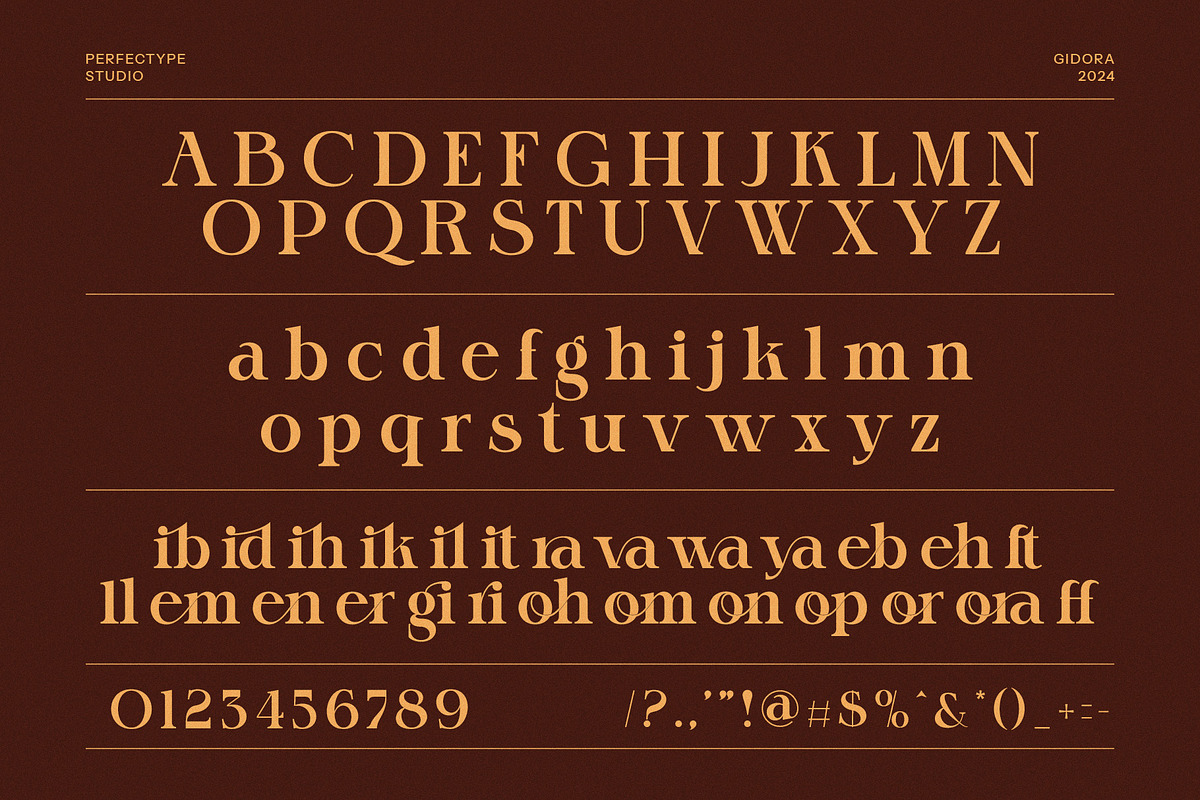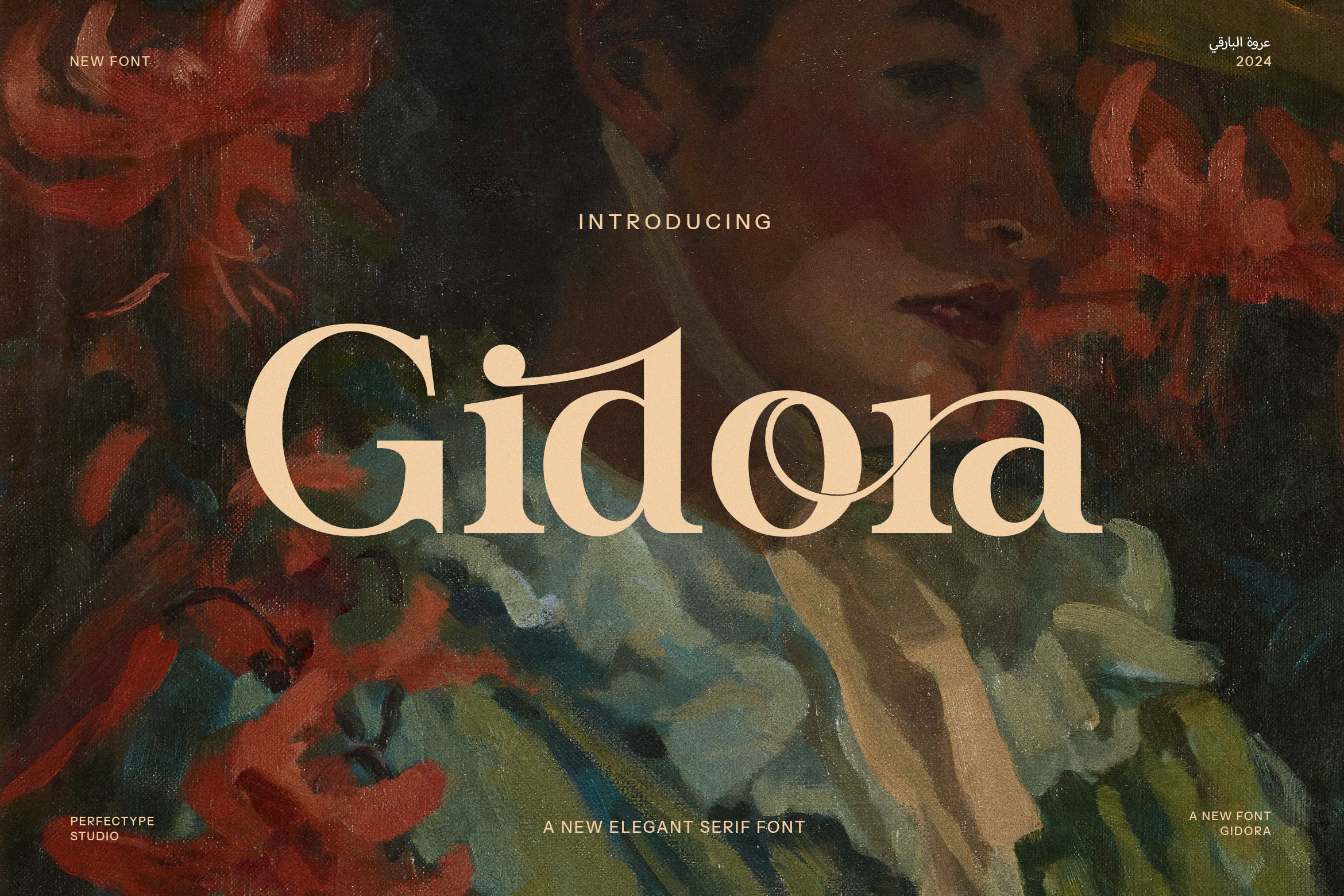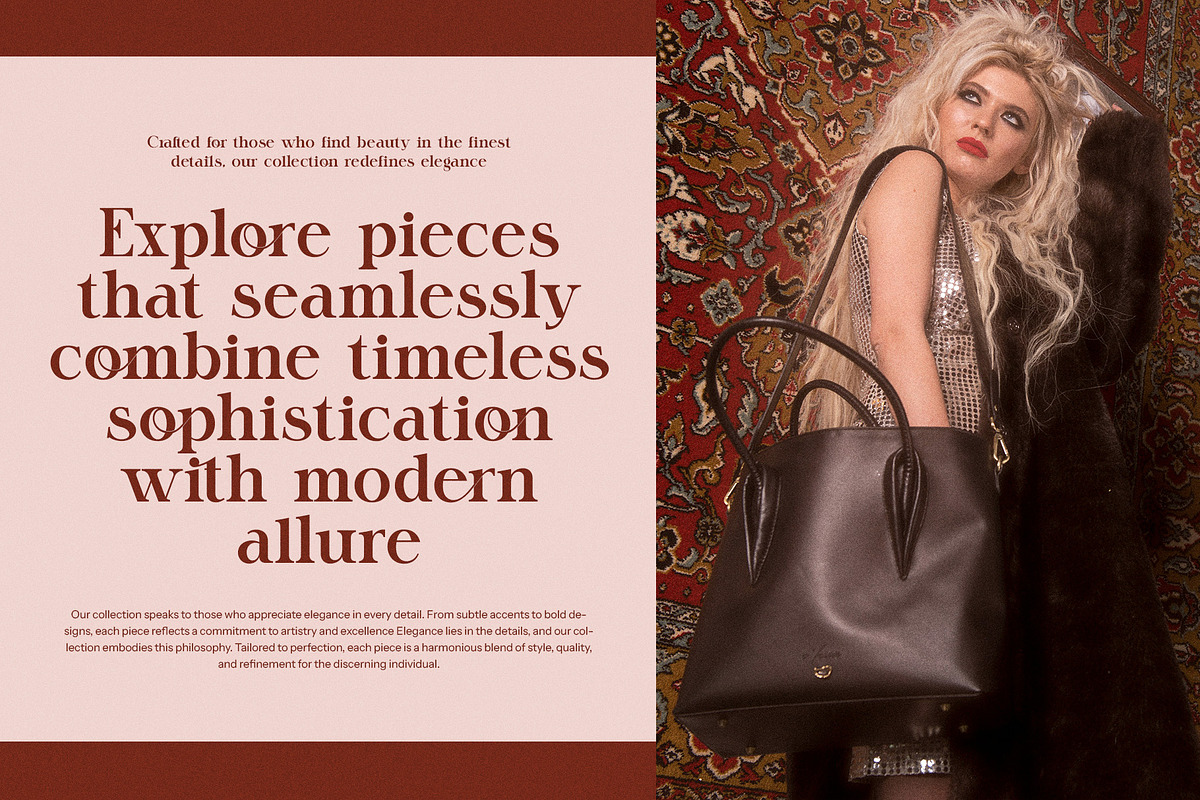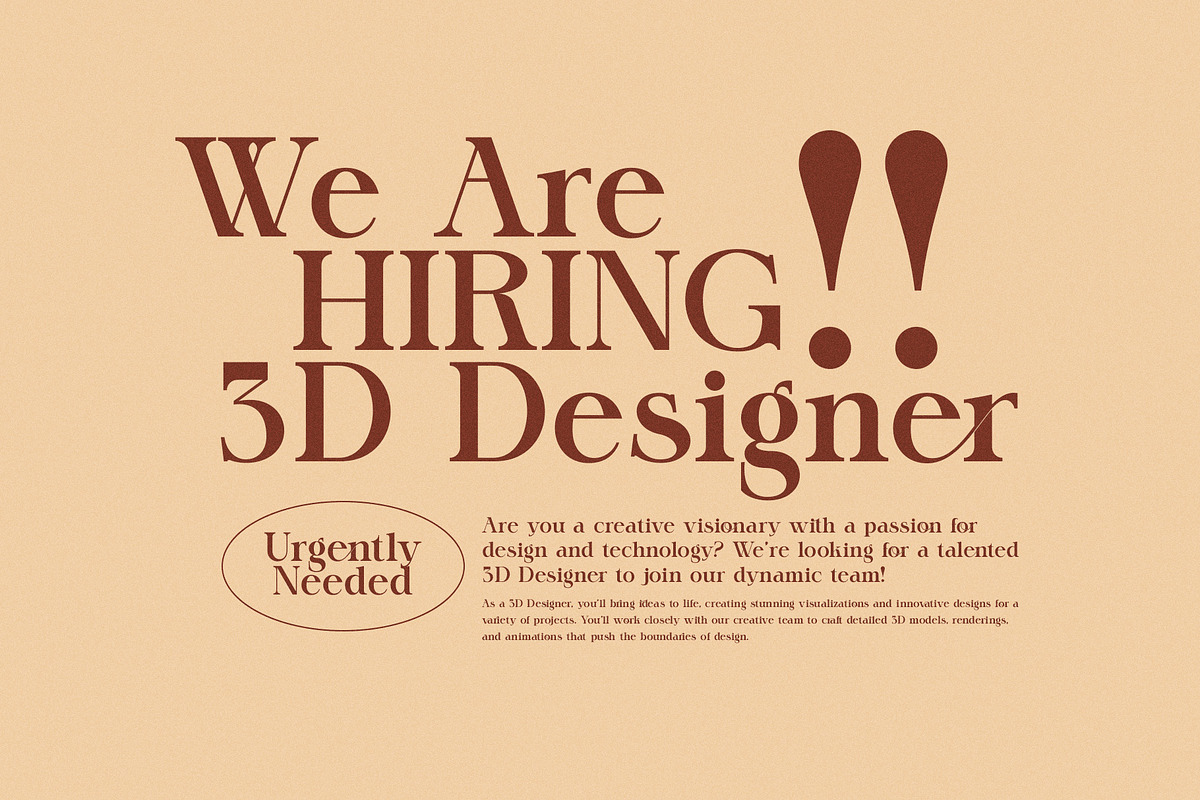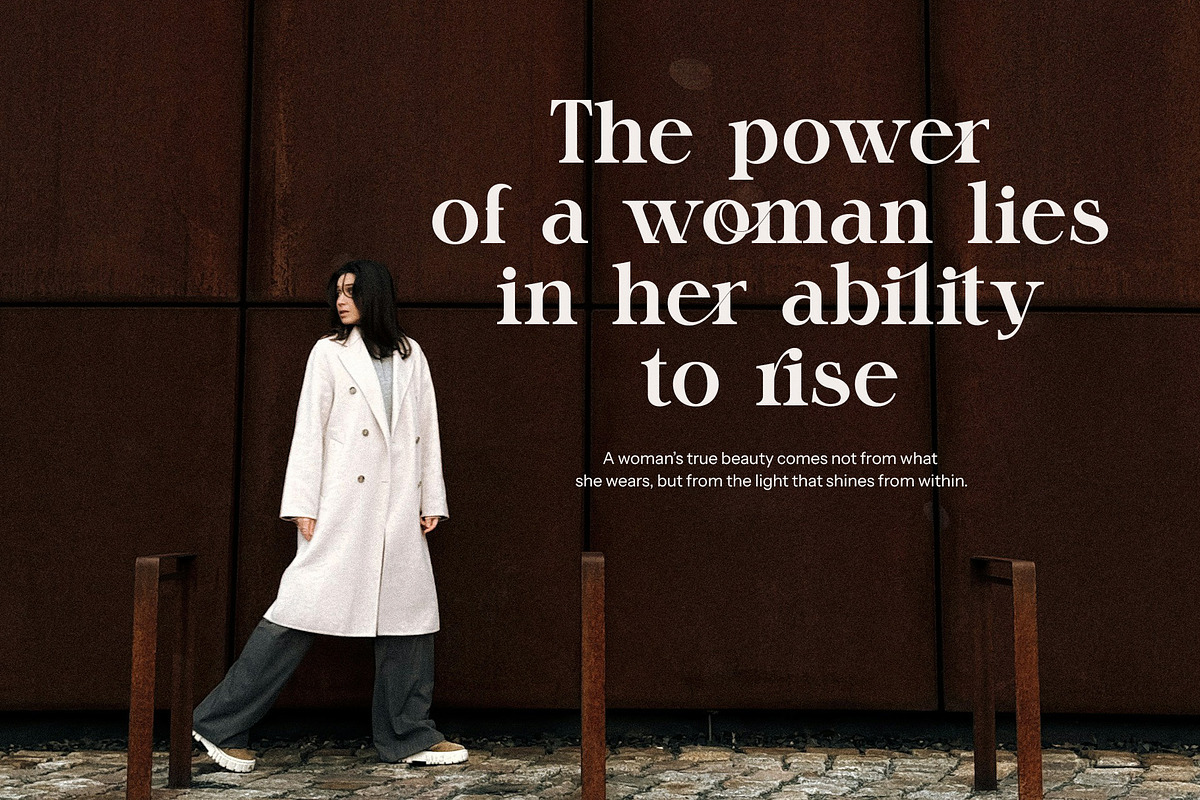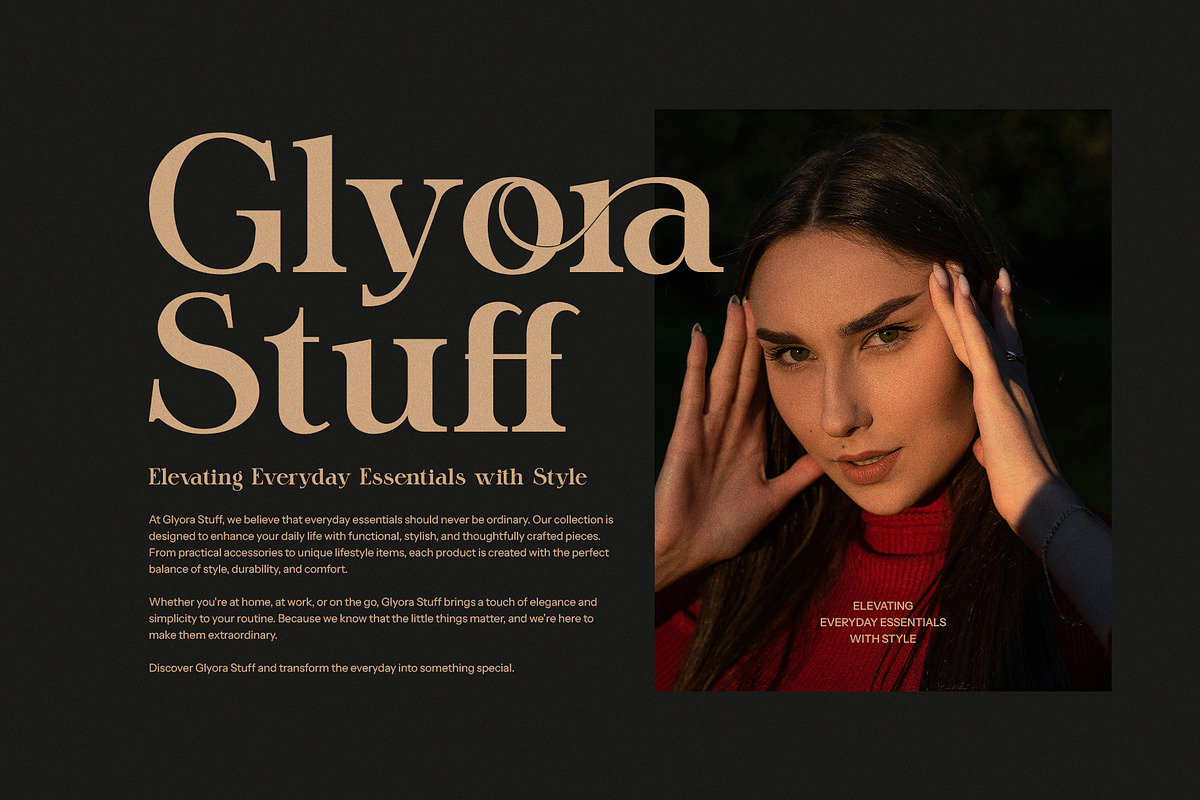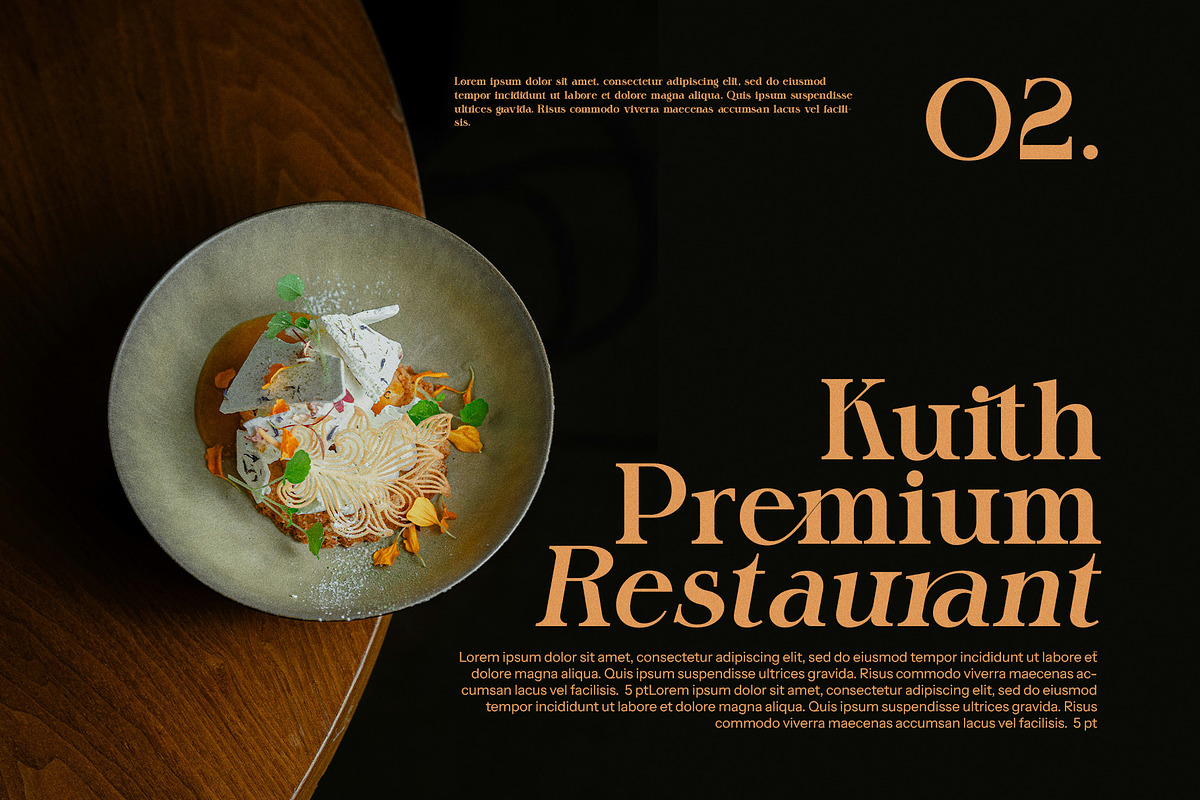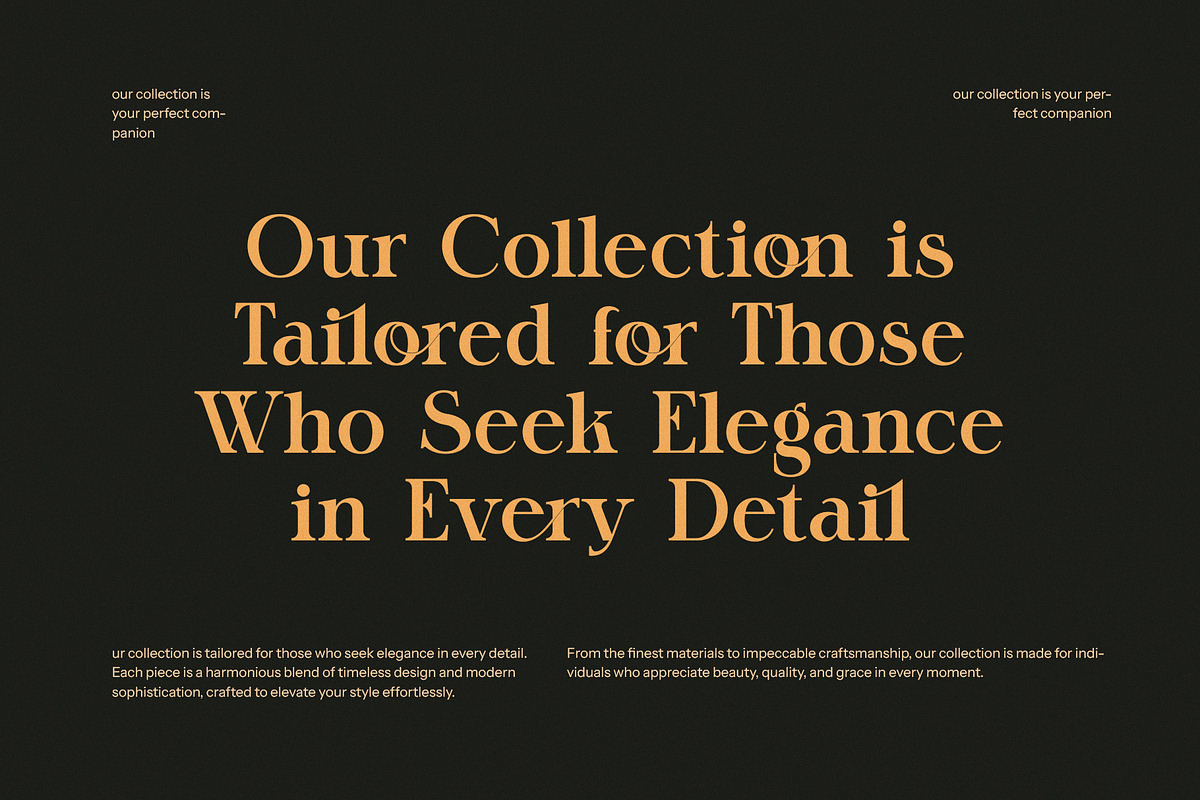
Gidora Elegant Serif Font
Gidora Elegant Serif Font is a refined and contemporary typeface that seamlessly blends sophistication with a touch of boldness. With its carefully crafted serifs and striking letterforms, Gidora exudes timeless elegance while maintaining a modern appeal. This font's unique ligatures and alternate characters add a level of artistry and individuality, making it ideal for projects that demand attention to detail and distinction.
Perfect for luxury branding, high-end logos, and premium website designs, Gidora brings an air of exclusivity to any creative endeavor. Whether you're working on magazine layouts, fashion catalogs, or sophisticated product packaging, this font provides the perfect balance of style and readability. Its graceful curves and distinctive serifs create a sense of opulence, elevating your designs to a new level of refinement.
Gidora’s versatility extends beyond just digital or print formats—its elegant character set is also perfect for use in advertisements, boutique signage, and even food and beverage branding, offering a sense of luxury and quality. The font’s alternate and ligature options further enhance its flexibility, giving you the ability to create dynamic, eye-catching compositions that stand out from the crowd.
Whether you’re designing for a high-end brand or working on a boutique product, Gidora Elegant Serif Font is an essential tool in any designer's collection. Its unique blend of modern elegance and classic charm makes it the perfect choice for creating lasting, memorable visual identities that resonate with your audience.